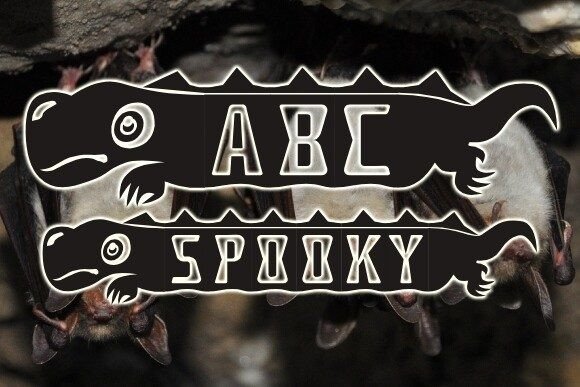
Cave Font: The Awesome Animal Font for Your Designs
Are you tired of using the same old fonts for your designs? Look no further! Introducing Cave Font, an exciting new font that’s sure to add a touch of wildness to any project. This amazing animal font is perfect for designers and crafters who want to create unique and eye-catching designs that stand out from the crowd.
What is Cave Font?
Cave Font is a fun and quirky font that’s inspired by the wild and wonderful world of animals. With its bold and playful lettering, this font is sure to bring a smile to anyone’s face. The font features a range of letters and symbols, all designed to look like they’re straight out of a cave painting. Whether you’re creating a poster, flyer, or t-shirt, Cave Font is the perfect choice.
Why Use Cave Font?
So why should you use Cave Font for your designs? Here are just a few reasons:
- Unique and eye-catching: Cave Font is unlike any other font out there. Its bold and playful lettering is sure to grab attention and make your designs stand out.
- Versatile: Whether you’re creating a poster, flyer, t-shirt, or any other type of design, Cave Font is the perfect choice. It’s versatile and can be used for a wide range of projects.
- High-quality: Cave Font is a high-quality font that’s designed to look great on any device. Whether you’re printing out your designs or displaying them online, Cave Font will look amazing.
Design Ideas Using Cave Font
Now that you have Cave Font, what can you create with it? Here are some design ideas to get you started:
- Posters: Create eye-catching posters for events, concerts, or festivals using Cave Font.
- Flyers: Design flyers for businesses, events, or promotions using Cave Font.
- T-shirts: Create custom t-shirts with Cave Font for a unique and eye-catching design.
- Logos: Use Cave Font to create logos for businesses, events, or organizations.
- Social media graphics: Create social media graphics, such as Facebook posts or Instagram stories, using Cave Font.